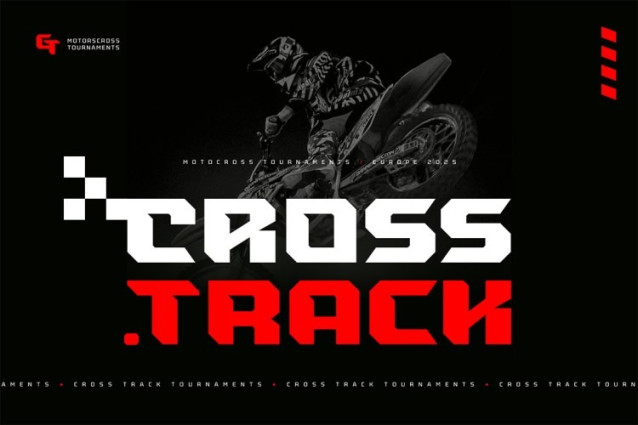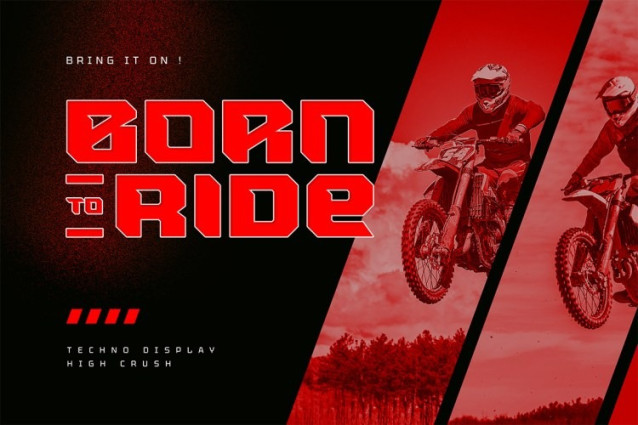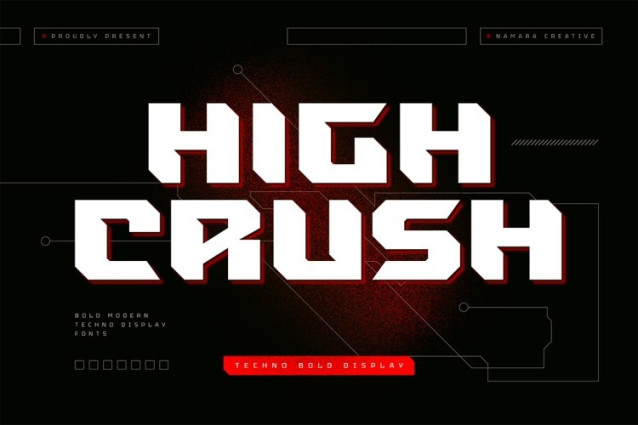
High Crush Font
High Crush Font – A visual reflection of progress and dynamism, Elevate your design projects to the next level with our cutting-edge bold techno display fonts. Suitable for a wide range of applications. Whether you’re designing sports event posters, tech product labels, or esports team branding, these fonts will make your content stand out.
Capture attention, and make a bold impression with these fonts. Start creating the future today!